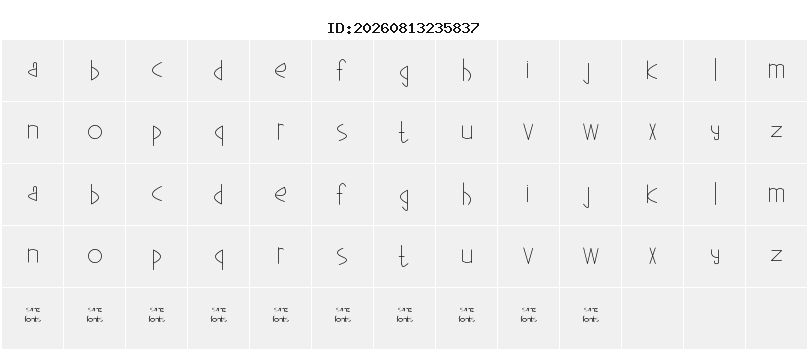
Ganeez Preview
• Font Name: Ganeez
• Full Font Name: sanz
• Designer: Sanz d'Cloudz
About Ganeez.ttf
Ganeez.ttf is a modern, elegant sans-serif font designed for ultimate readability and visual harmony. Perfect for branding, headlines, web design, and print materials.